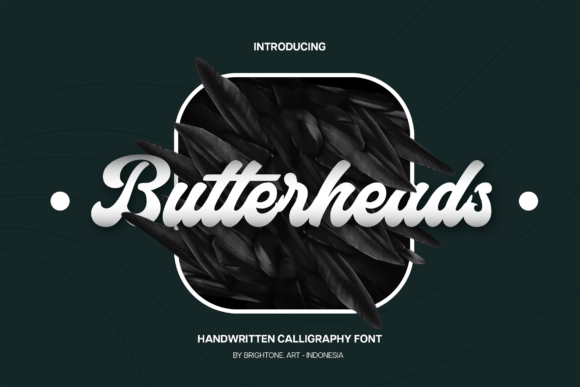
The Art of Beautiful Typography: Unveiling the Butterheads Font
Have you ever stared at a blank page, trying to come up with the perfect font to capture the essence of your brand? I know I have. The struggle is real, especially when you’re looking for a font that’s both elegant and bold. That’s when I discovered the Butterheads Font, a stunning handwritten script typeface that’s adapted from classic and modern script calligraphy.
Butterheads Font is a versatile and beautiful addition to any designer’s toolkit, perfect for creating logos, labels, packaging, stickers, and branding materials. Its PUA encoding allows for easy access to all the glyphs and swashes, giving you endless possibilities to experiment and create unique designs. Whether you’re a seasoned designer or just starting out, Butterheads Font is a valuable resource that’s sure to inspire your next creative project.
- Unique Characteristics: The Butterheads font features a unique blend of elegance and playfulness, making it perfect for creative projects that require a touch of sophistication and whimsy.
I recently had the chance to work with the Butterheads font, and I have to say it’s a pretty interesting choice. ✨ One of the things I appreciate about it is its quirky, offbeat feel. The font’s playful aesthetic makes it perfect for projects that need a bit of whimsy.
Another thing that works well in the Butterheads font is its versatility. ✨ It’s available in a range of weights and styles, making it easy to use across different contexts and mediums. Whether you’re designing a children’s book or a brand identity, the Butterheads font has got you covered.
- ⚠️ Limited legibility at small sizes: The Butterheads font can be a bit tricky to read at very small sizes, which might be a concern for projects where text needs to be displayed at a compact scale.
- ⚠️ Not ideal for body text: While the font is great for headlines and other display text, it’s not the best choice for body text. The irregular letterforms can make it harder to read large blocks of text.
Overall, I think the Butterheads font is a great choice for designers who want to add some personality to their projects. With its unique feel and versatility, it’s a great addition to any design toolbox.